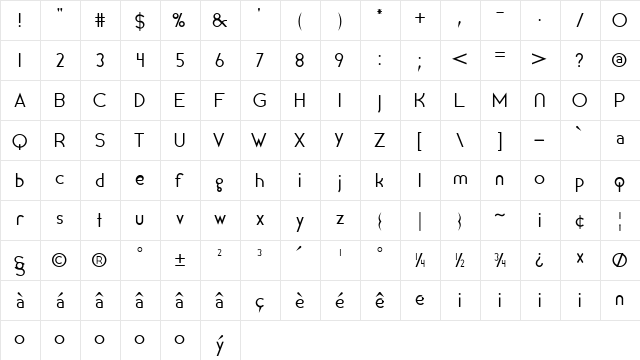
Kalos Sans Book
| Foundry | Luke Joyner |
| Designer | Luke Joyner |
Design Context for Kalos Sans Typeface
Kalos Sans offers clean, dependable letterforms without strong stylistic allegiance, making it a practical choice for designers who need flexibility.